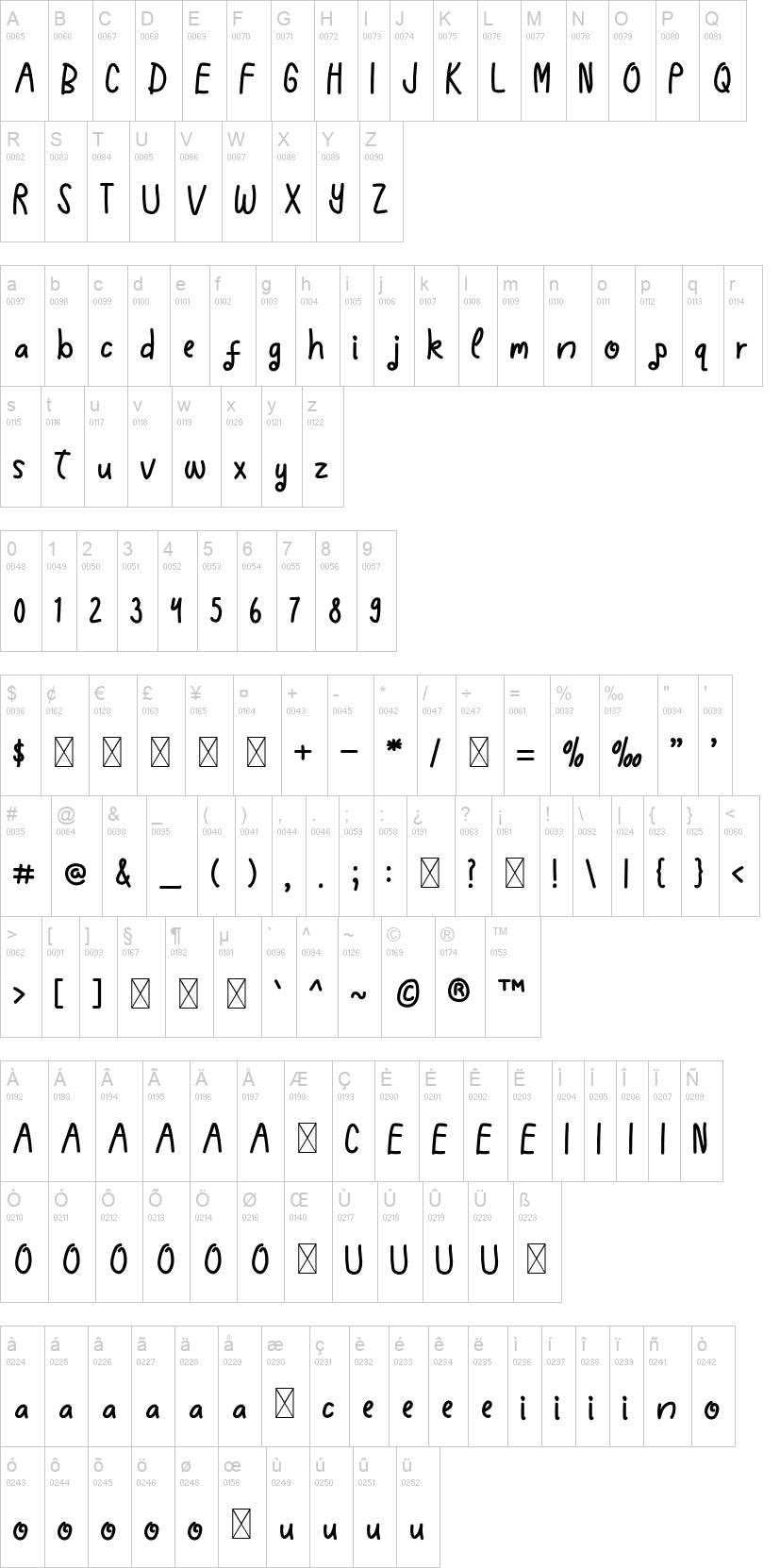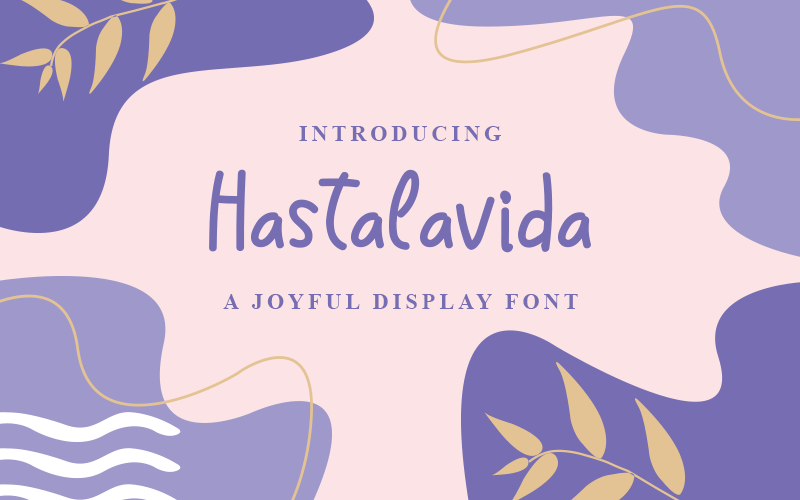
Note of the authorHastalavida Font is a Joyful Display Font which is perfect choice for any Children Design. It will elevate a wide range of design projects to the highest level, be it branding, headings, wedding designs, signatures, logos, labels, and much more!